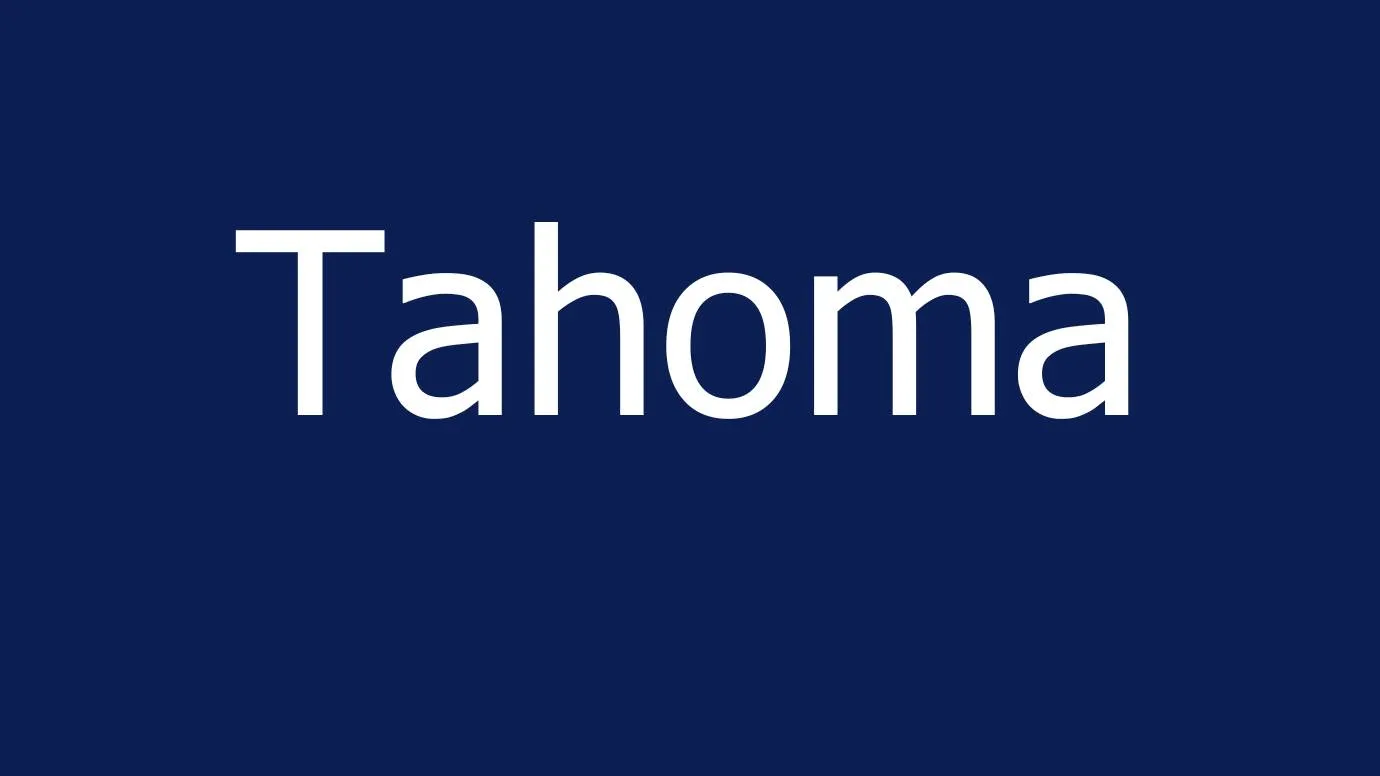
Tahoma Font Family is a member of the Sans-Serif font family. It was specifically created for Microsoft Corporation in 1994 by designer Mathew Carter. Later Microsoft distributed this typeface with Verdana font with Office 97 as a computer typeface.
Microsft has replaced MS Sans Serif with this font as their default screen typeface. It was also used for skype and promotional material for Sega’s Dreamcast.
NameTahoma Font
FoundryMicrosoft Typography
DesignerMatthew Carter
TypeHumanist
Date Released1994